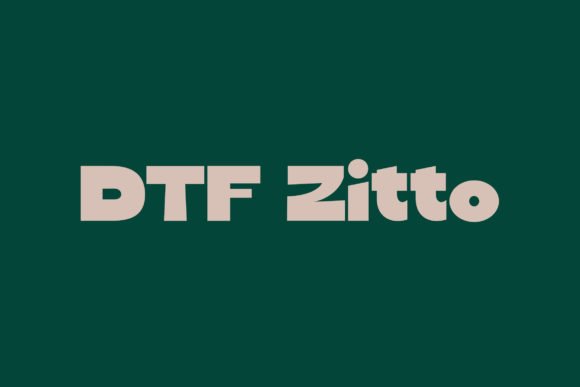
The Perfect Blend of Trendiness and Elegance: DTF Zitto Font
You know that moment when you’re brainstorming ideas for a project and suddenly, the perfect font pops into your mind? It’s like the whole design comes together in an instant. For me, that moment was when I stumbled upon the DTF Zitto Font. Its bold, thick letters and modern vibe had me hooked from the start.
The DTF Zitto Font is more than just a trendy display font – it’s a game-changer for designers. Whether you’re working on a crafting project, creating digital designs, or making presentations, this font is perfect for adding that extra oomph. Its versatility and style make it a valuable addition to any designer’s toolkit, and I’m excited to share its features with you.
Key Features of DTF Zitto Font
- Font Family: DTF Zitto is a digital font family designed for direct-to-film (DTF) printing. It is available in various font styles, including Regular, Bold, Italic, and Bold Italic.
- Character Count: The font family includes a wide range of characters, including Latin, Cyrillic, and Greek alphabets, as well as various punctuation marks and symbols.
- Unique Characteristics: DTF Zitto font is designed specifically for direct-to-film printing, which requires unique characteristics such as high contrast, clear legibility, and robustness to ensure accurate printing results.
DTF Zitto Font Review
Overall, I think DTF Zitto is a solid font choice for a variety of projects. ✨ Its clean lines and modern aesthetic make it perfect for anything from branding materials to digital interfaces.
Here are some of the things that I think work particularly well:
- Legibility: The font is extremely easy to read, even at smaller sizes.
- Customizability: The font family includes a range of weights and styles, giving you plenty of options for finding the right fit for your project.
- Compatibility: I’ve had no issues with the font displaying correctly across different devices and browsers.
That being said, there are a few limitations that are worth mentioning:
- Expressiveness: While DTF Zitto is a great choice for straightforward text, it may not be the best option for projects that require a lot of emotional expression or nuance.
- Uniqueness: While the font is well-designed, it may not stand out from other similar fonts in a crowded market.
- Personal touch: Some users may find the font a bit too sterile or corporate, which could be a turn-off for certain projects.
Overall, I’d give DTF Zitto 4 out of 5 stars. It’s a solid choice for a wide range of projects, but may not be the best fit for every user’s needs.
DTF Zitto is a versatile font suitable for various designs, including logos, posters, and business cards.
For best results, use DTF Zitto in conjunction with bold or italic styles to create visual interest.